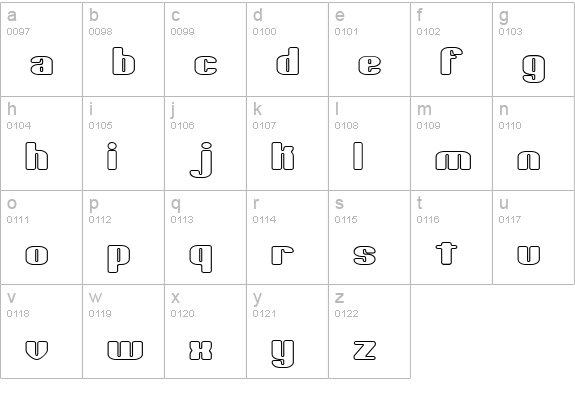
Typesource Extol O BRK Font Details
Typesource Extol O BRK is a captivating and versatile font that exudes elegance and sophistication. With its unique and intricate design, this font is sure to capture the attention and admiration of any audience. Its clean lines and balanced proportions make it perfect for a wide range of creative projects, from logos and branding materials to invitations and website designs. One of the standout features of Typesource Extol O BRK is its incredible versatility. Whether you're aiming for a modern and sleek look or a more traditional and timeless feel, this font can effortlessly adapt to any design concept. Its carefully crafted letterforms are visually pleasing and easy to read, making it suitable for both headline and body text. But what makes Typesource Extol O BRK even more appealing is that it is free to download. Yes, you read that right! This exceptional font is freely available at FontsMarket.com, allowing designers and creatives to access it without any cost. This makes it a valuable asset for both professional designers and hobbyists alike, providing them with a high-quality font that won't break the bank. So why wait? Enhance your design projects with the remarkable beauty of Typesource Extol O BRK. Download it for free at FontsMarket.com and unlock a world of possibilities. Whether you're working on a personal project or a client's design, this font is sure to elevate your work and leave a lasting impression. Don't miss out on this incredible opportunity to add a touch of elegance to your designs with this freely available font.